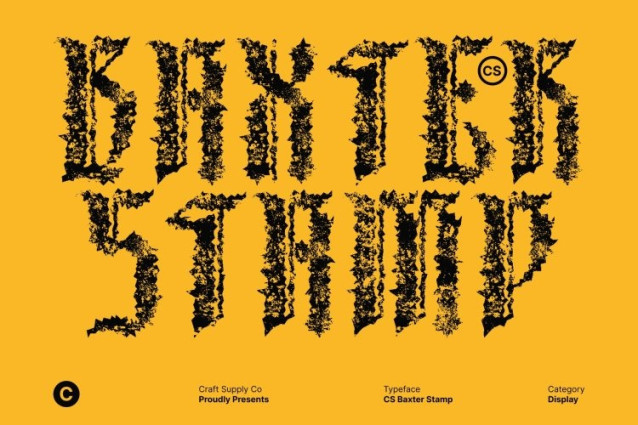
CS Baxter Stamp Font
CS Baxter Stamp Font This is a modern blackletter display font that fuses classic gothic heritage with contemporary design, enhanced by a bold stamp texture. While preserving the sharp angles and intricate details of traditional blackletter, the stamped effect introduces a raw, aged character that evokes vintage print, underground culture, and handcrafted rebellion.
Sharp Letterforms with Distressed Expression
The font features bold, angular strokes paired with expressive curves inspired by old-world calligraphy. The added stamp texture brings subtle imperfections and roughness, creating a dynamic contrast between structured gothic forms and organic, worn details. This gives the typeface a powerful, tactile presence that feels both historic and modern.
Perfect for Edgy, Alternative, and Experimental Design
This font excels in branding, music posters, fashion labels, album covers, and streetwear visuals. Its distressed blackletter style makes it ideal for tattoo-inspired graphics, rock and metal aesthetics, underground branding, and designs that demand attitude and authenticity.
A Typeface That Commands Strength and Identity
Whether used for logos, editorial headlines, merchandise, or statement visuals, delivers a bold, rebellious voice. Its fusion of blackletter tradition, modern structure, and vintage stamp texture ensures a timeless yet provocative impact for designers who want to stand out with confidence and character.